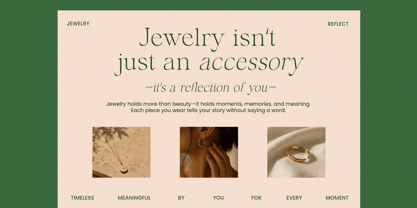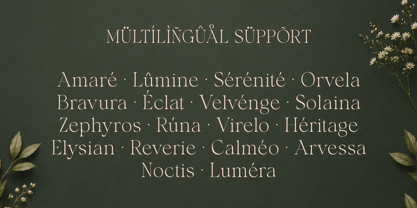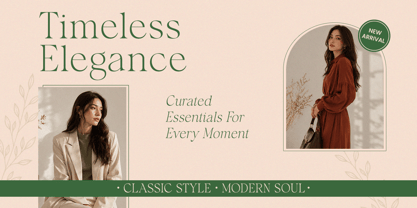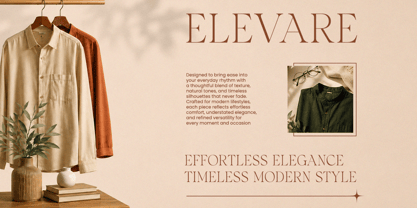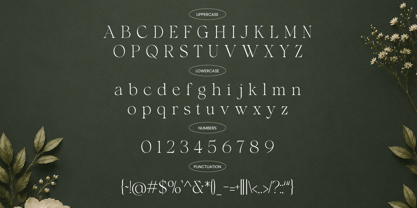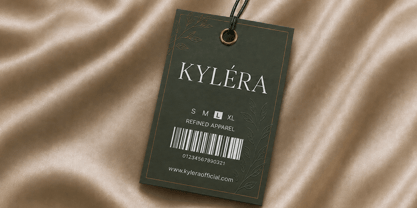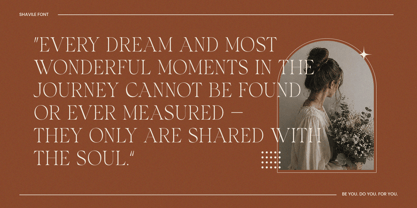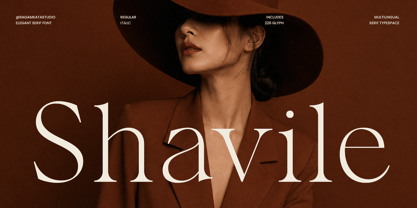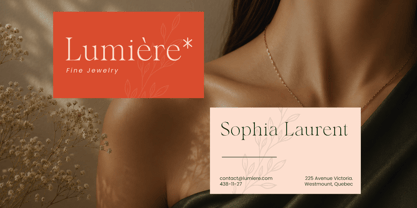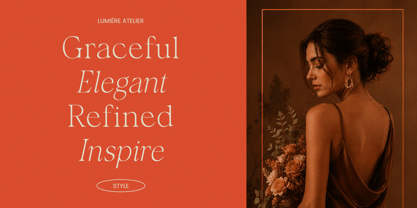
Shavile
The Shavile Font Family was designed by Yogiswhara Dio Prakoso Riadi and published by RagamKata. Shavile contains 2 styles and family package options. More about this family
Shavile is an elegant fashion serif font crafted for luxury branding, high-end editorial design, and sophisticated visual storytelling. With its graceful letterforms, refined contrast, and timeless serif character, this typeface captures the essence of premium fashion houses, couture campaigns, beauty packaging, and modern lifestyle branding. Designed to radiate elegance and confidence, Shavile transforms every word into a statement of style.
Featuring Regular and Italic styles, multilingual support, and 226 glyphs, Shavile offers exceptional versatility for creative professionals working across fashion magazines, cosmetic branding, jewelry packaging, logo design, wedding editorials, social media campaigns, and premium product presentations. Its delicate yet commanding presence creates a luxurious visual rhythm that feels both classic and contemporary.
Perfect for designers seeking a serif typeface with editorial sophistication and fashion-forward charm, Shavile brings runway-inspired elegance to branding projects, boutique identities, perfume campaigns, luxury websites, and timeless typographic compositions.